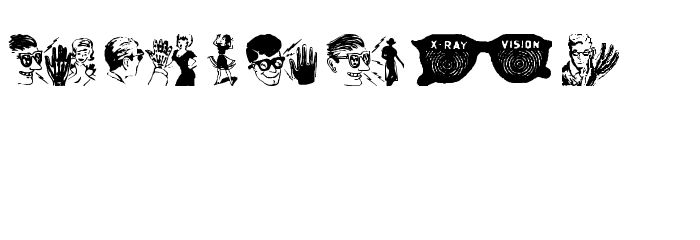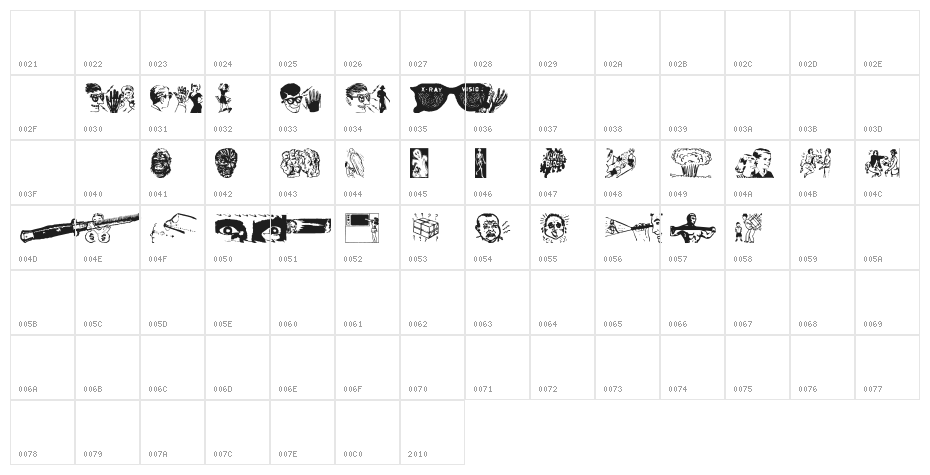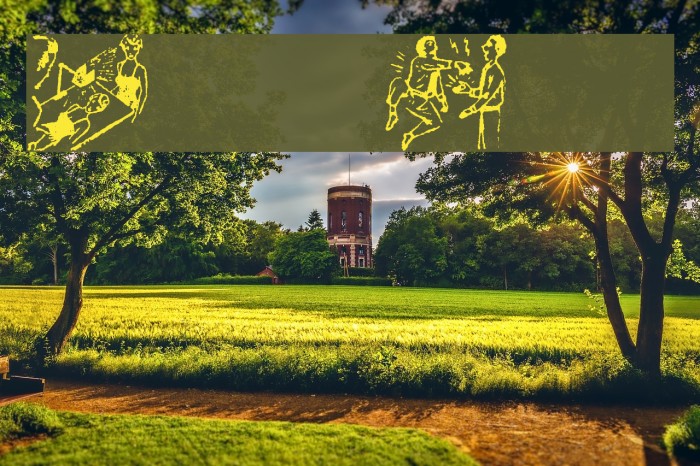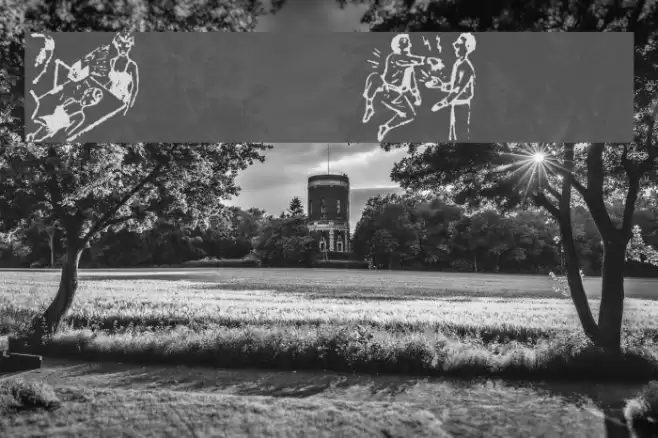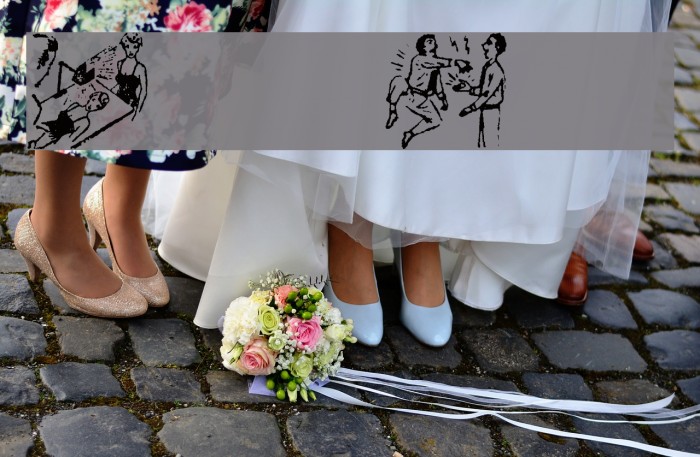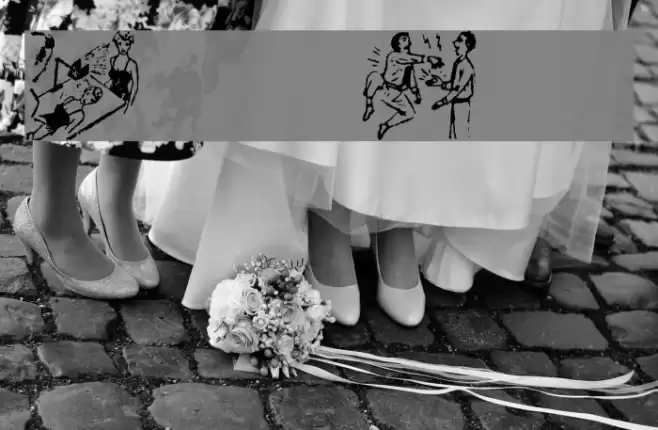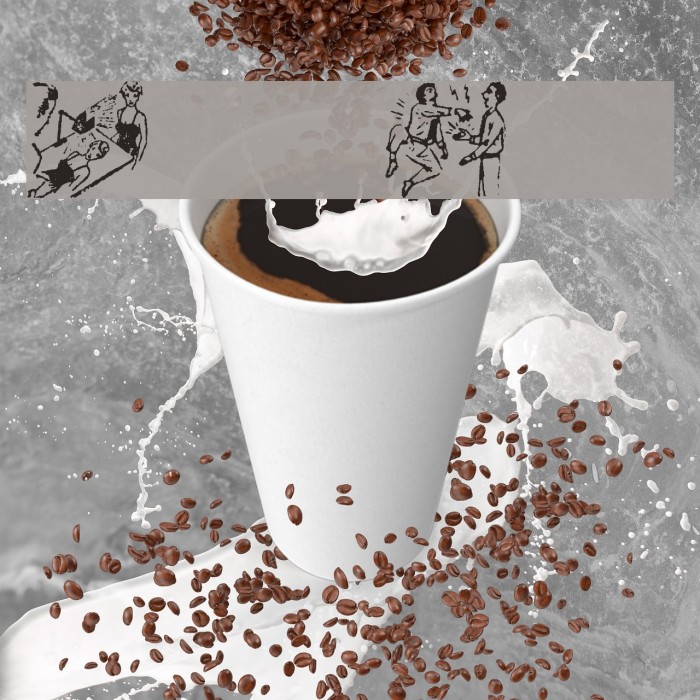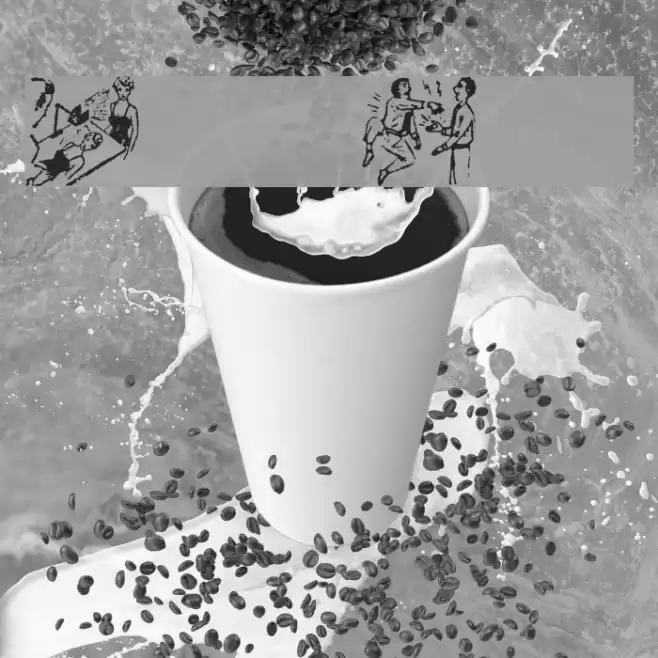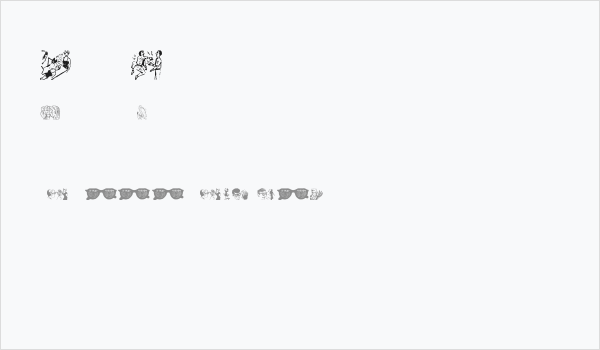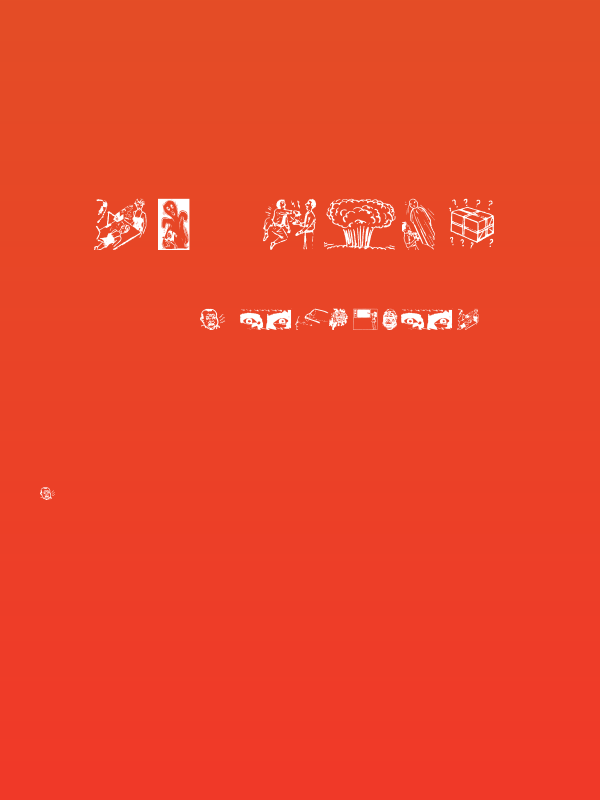
Hey Kids Font
Hey Kids Description
This is a decorative and playful font featuring a series of quirky and humorous illustrations instead of traditional alphanumeric characters. Each character is represented by a unique, cartoon-style image, ranging from faces and hands to various objects and scenes. The style is reminiscent of vintage comic strips, with bold lines and exaggerated expressions. This font is designed to capture attention and add a whimsical touch to any project, making it ideal for creative and informal uses.
| Use Case | Logos, Posters, Creative projects |
| Proposed Projects | Ideal for comic books, children's party invitations, playful posters, and creative branding projects. |